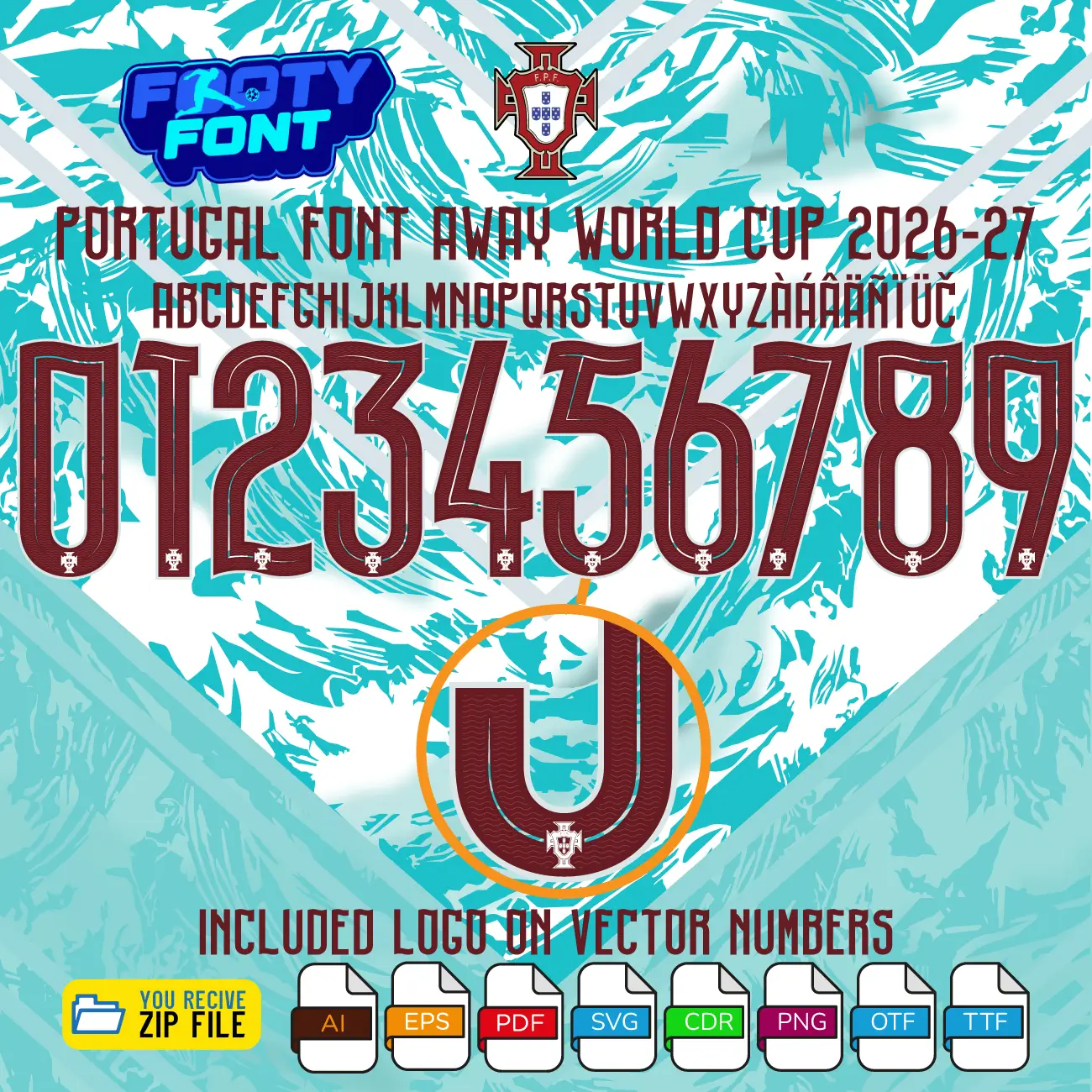
Portugal 2026 Football Font
Bring the unmatched flair and passion of A Seleção to your designs with this font Football, inspired by the Portugal 2026 World Cup away kit. This high-quality typeface is meticulously designed to replicate the elegant, modern lettering worn by the Portuguese National Team. It features striking deep burgundy/red numbers with a crisp white outline and internal detail line, crafted to stand out perfectly against their stunning light blue patterned alternative jerseys.
This font captures the elite style worn by football royalty like Cristiano Ronaldo, Bruno Fernandes, Bernardo Silva, and Rafael Leão. As Portugal gears up for the global stage in 2026, this away font is an absolute must-have for fans creating custom jersey designs, digital art, streetwear, or matchday posters.
Composite image showing Portuguese players wearing the light blue alternative jersey alongside the complete character set of the Portugal Font World Cup 2026 Away.
A complete look at the Portugal Font World Cup 2026 Away, featuring the full number set and a real-world match photo of the Portuguese national team.
Use this font to bring authentic Portuguese football style into your designs-whether for custom jersey graphics, fan merchandise, posters, or social media content.
Portugal Font World Cup 2026 Away showing the complete alphabet and dark burgundy numbers with white outlines.
Portugal Font World Cup 2026 (Away Kit)